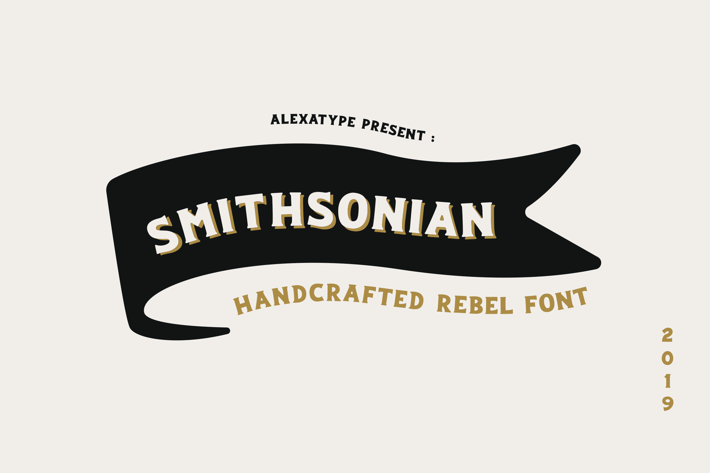
Smithsonian Font
Smithsonian is a vintage-inspired display font crafted for classic branding, traditional signage, and timeless logos. With its bold, structured letterforms and subtle old-world charm, this font is ideal for heritage-themed branding, whiskey labels, handcrafted goods, and retro badges. Whether you're designing barbershop logos, rustic packaging, or Americana-style merchandise, Smithsonian delivers a nostalgic yet powerful aesthetic that stands the test of time.
Key Features
Bold, Vintage Lettering – Strong, structured design with a classic heritage feel.
Perfect for Branding & Signage – Ideal for logos, handcrafted products, and retro-themed graphics.
Inspired by Classic Americana & Craftsmanship – Works beautifully in whiskey labels, barbershops, and artisanal goods.
Versatile for Print & Digital Use – Well-suited for badges, apparel, packaging, and signage.
Smithsonian is perfect for businesses and designers looking for a bold, heritage-style typeface. Its strong vintage character makes it a go-to choice for brands that emphasize tradition, craftsmanship, and authenticity. Whether used in pub branding, custom apparel, brewery labels, or signage for classic establishments, Smithsonian brings a timeless touch to every project.